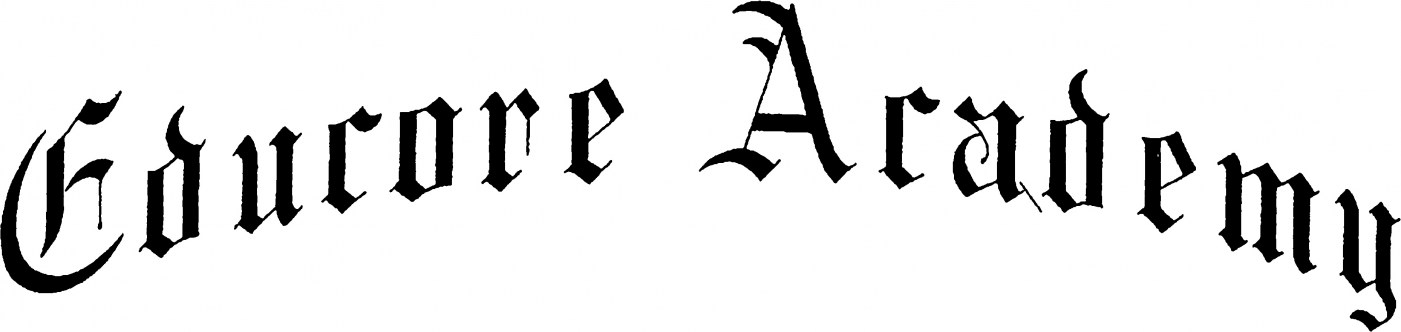
Similar to Engravers Old English
Been searching forever for an exact match of this type style, used on numerous diplomas and certificates, any help greatly appreciated !!